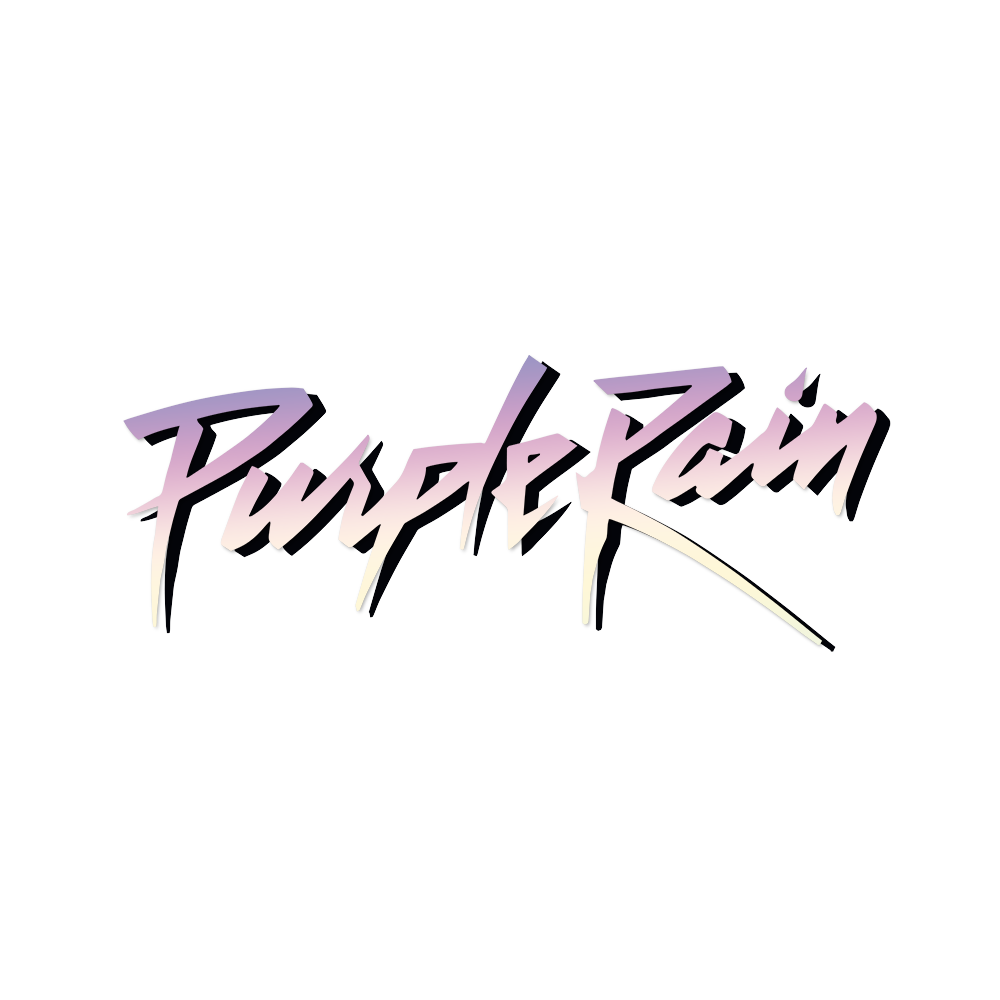
Purple Rain Font
Fonts in UsePurple Rain is a 1984 musical drama film directed by Albert Magnoli and starring Prince, in which he plays a musician named "The Kid" who struggles with his tumultuous home life and rising fame.
The Purple Rain font looks similar to Still Time by Canadian typographer Ray Larabie, and Beta by FG Studios.